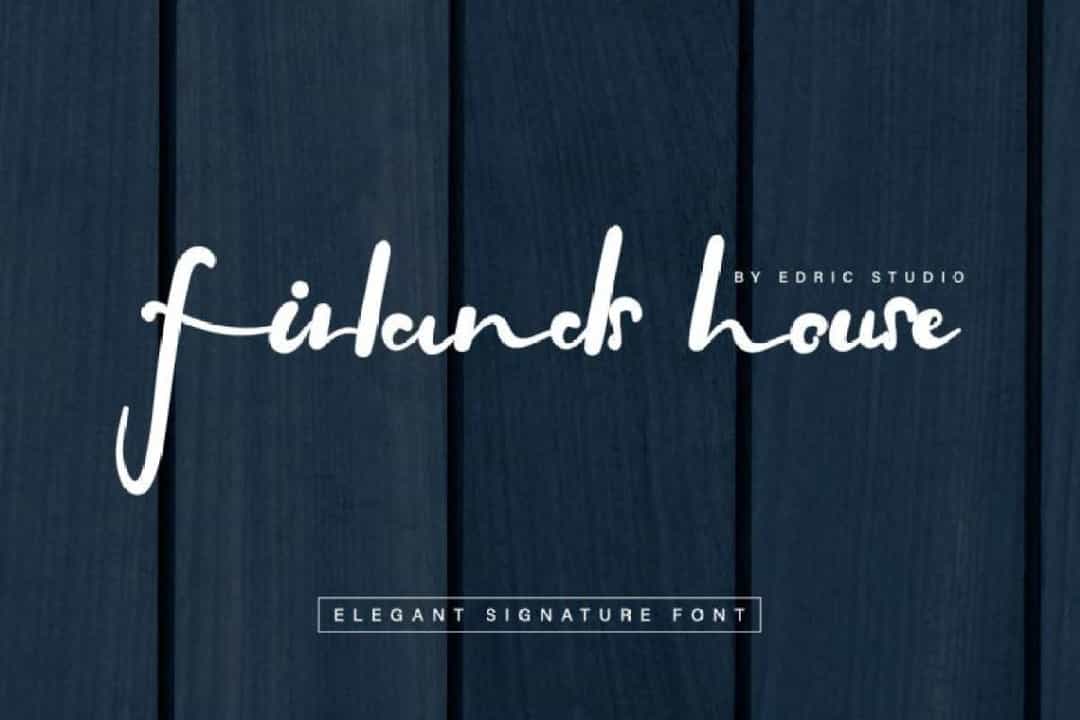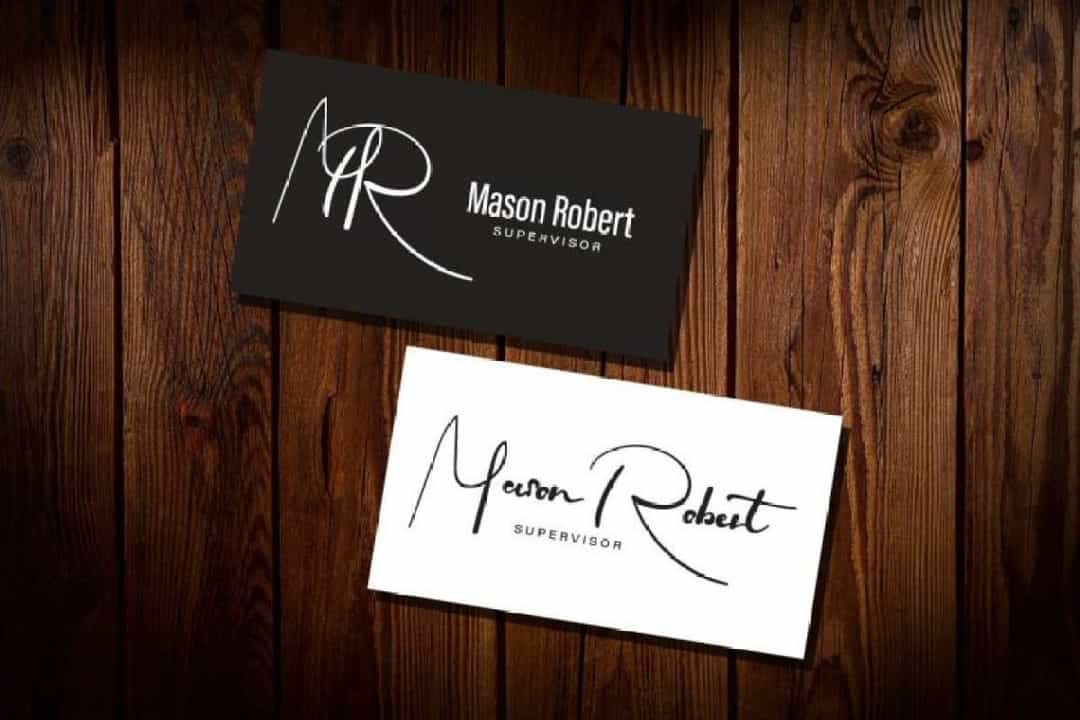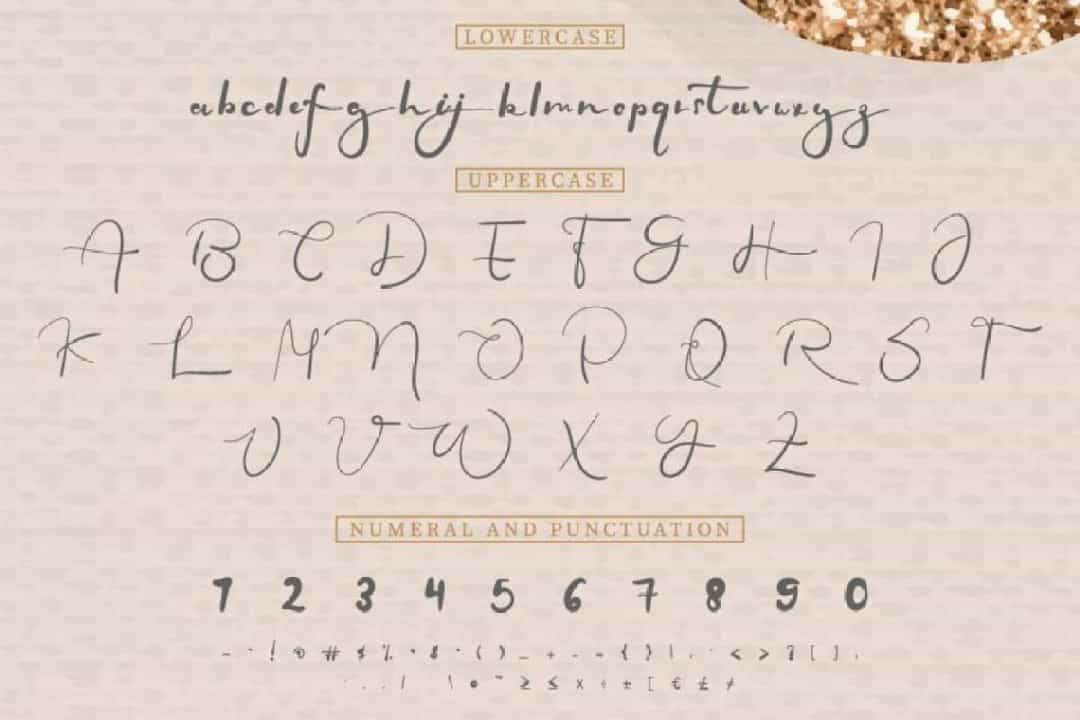
Firlands House is a script font with the natural and real handwriting look and has a handmade touch that makes it perfect for signatures, handwriting, posters, logos, stationery clothing, cards, and many more. !.